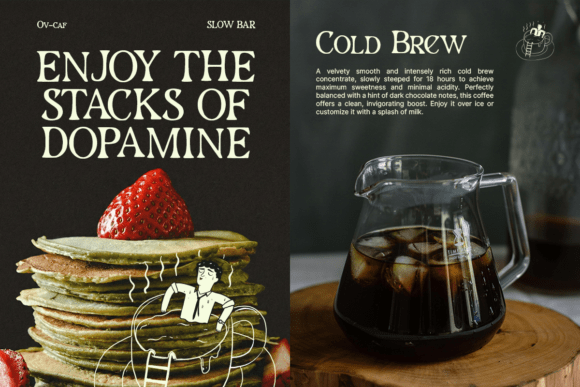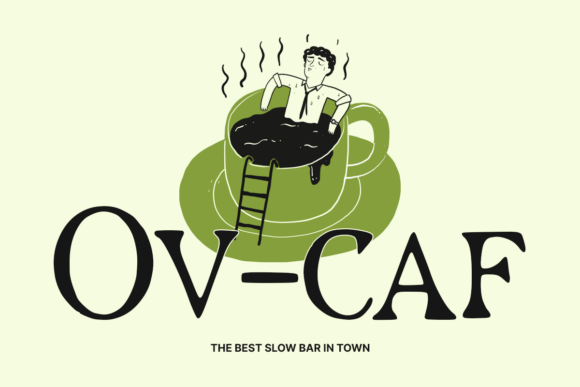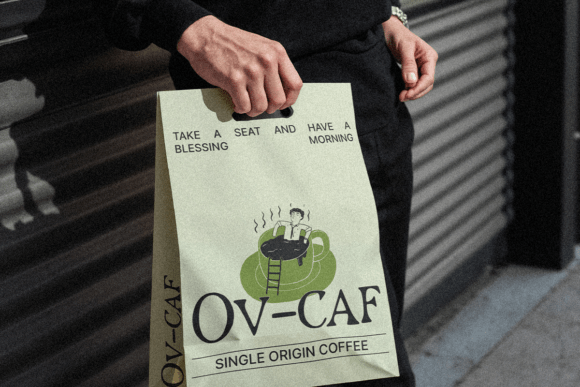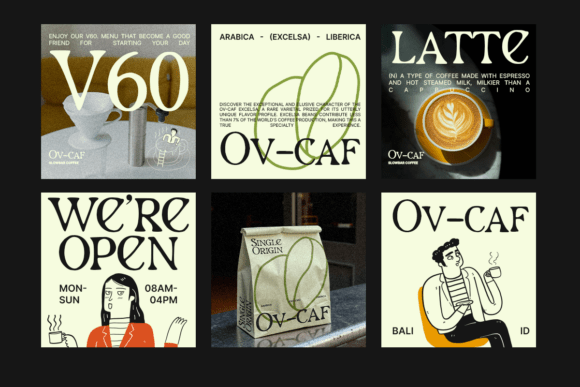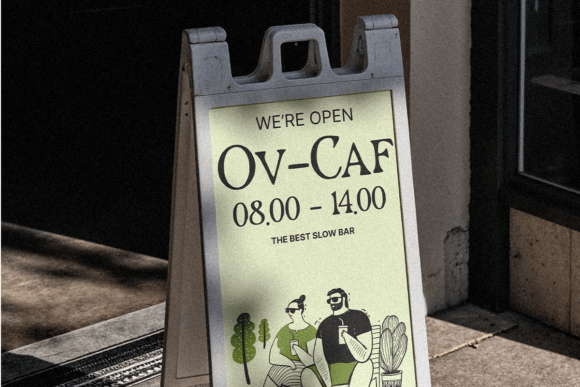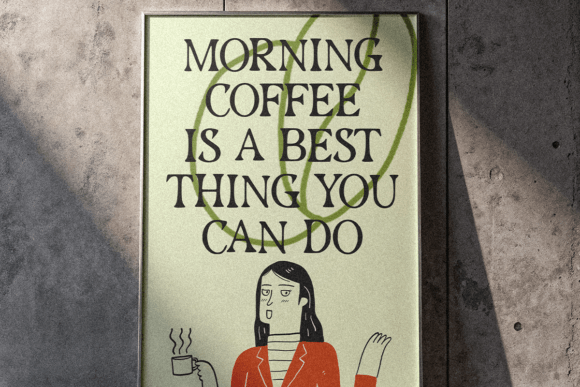
Introducing Gritor Font: A Handmade Editorial Typeface with a Personal Touch
In the world of typography, there’s something special about a font that exudes warmth, personality, and a human touch. Gritor Font is one such typeface that embodies these qualities, making it perfect for designers and crafters looking to add a unique flair to their visual projects. In this article, we’ll delve into the features, benefits, and uses of Gritor Font, and explore how it can elevate your designs to the next level.
The Story Behind Gritor Font
Gritor Font is an editorial, handmade font crafted with imperfect strokes, natural curves, and an expressive, handcrafted touch. Designed in one regular handmade style, this typeface blends the charm of hand-drawn lettering with the sophistication of editorial typography. The result is a font that feels organic, intentional, and authentic, giving your design a warm, artistic, and humanistic look.
Key Features of Gritor Font
- Handmade with love: Gritor Font is crafted with imperfect strokes and natural curves, giving it a unique, handcrafted feel.
- Editorial sophistication: Despite its handmade nature, Gritor Font boasts a level of sophistication that’s perfect for editorial use.
- Expressive and artistic: Every letter in Gritor Font is designed to feel organic and intentional, making it perfect for storytelling and creative projects.
- Vintage charm: Gritor Font carries a subtle vintage character that adds a touch of nostalgia to your designs.
- Clean and modern: Despite its vintage undertones, Gritor Font remains clean and modern, making it suitable for a wide range of applications.
Gritor Font is ideal for a variety of creative projects, including:
- Storytelling: Gritor Font’s expressive, handcrafted nature makes it perfect for storytelling and narrative-driven projects.
- Magazine layouts: The font’s editorial sophistication and handmade charm make it a great fit for magazine layouts and editorial design.
- Café branding: Gritor Font’s warm, artistic feel makes it perfect for café branding, menus, and packaging.
- Posters and packaging: The font’s bold, expressive nature makes it ideal for posters, packaging, and other attention-grabbing applications.
- Creative identity projects: Gritor Font’s unique blend of handmade and editorial styles makes it perfect for creative identity projects that require a personal touch.
Why Choose Gritor Font?
So, why choose Gritor Font for your next project? Here are just a few reasons:
- Unique personality: Gritor Font brings a unique personality to your designs, setting them apart from more generic, cookie-cutter fonts.
- Authentic feel: The font’s handmade nature gives it an authentic feel that’s perfect for designers and crafters looking to add a human touch to their work.
- Versatility: Gritor Font is versatile enough to be used in a wide range of applications, from editorial design to branding and packaging.
- Ease of use: Despite its unique nature, Gritor Font is easy to use and pairs well with a variety of other fonts and design elements.
In conclusion, Gritor Font is a unique and versatile typeface that’s perfect for designers and crafters looking to add a personal touch to their visual projects. With its handmade, editorial nature and expressive, artistic feel, Gritor Font is ideal for a wide range of creative applications. Whether you’re working on a magazine layout, café branding, or a creative identity project, Gritor Font is sure to bring a level of warmth, personality, and authenticity to your design that’s hard to find with more generic fonts.